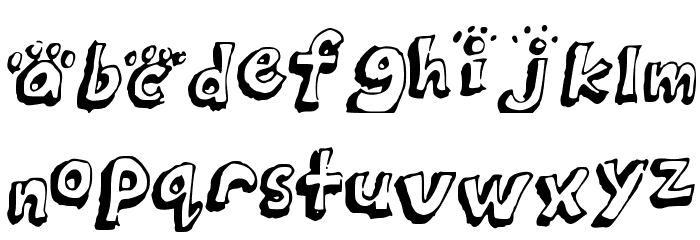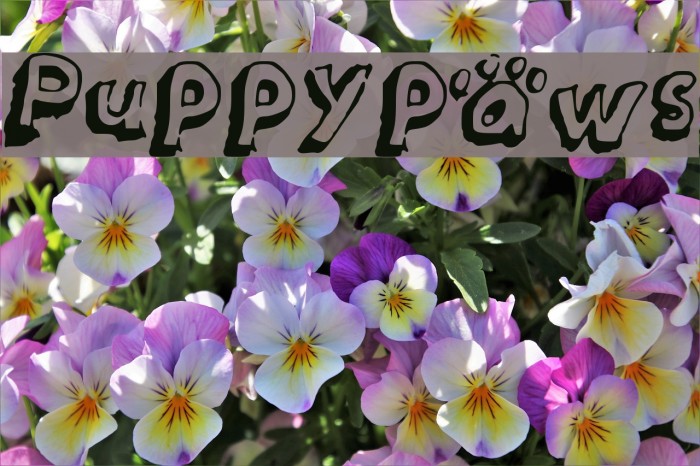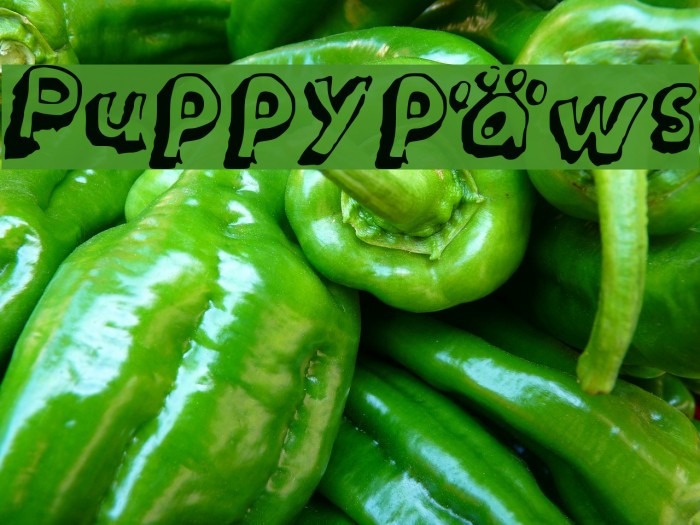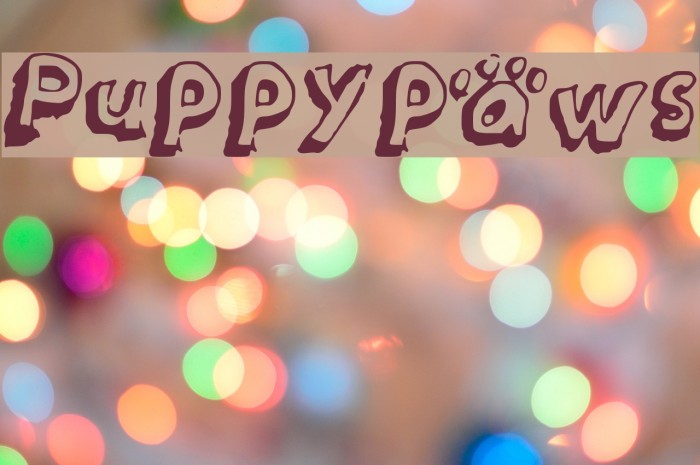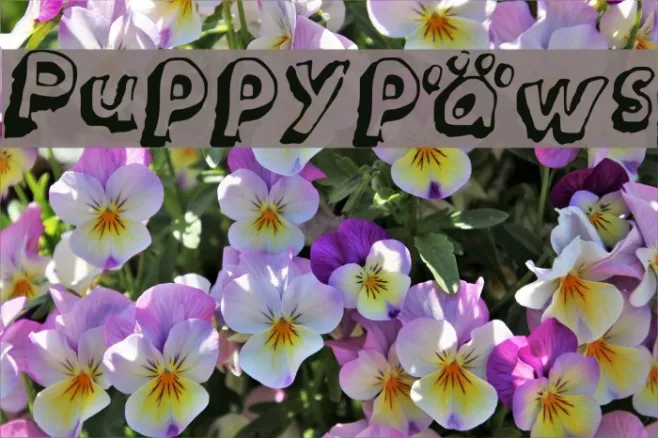
Puppy_paws Font
This playful and whimsical font features a unique design with paw print accents on several characters, giving it a fun and friendly appearance. The letters are bold and slightly irregular, adding to the casual and informal style. The font includes both uppercase and lowercase letters, numbers, and a variety of special characters. The strokes are thick, with a medium contrast between the thick and thin parts, enhancing readability while maintaining a lively look. The overall style is decorative, making it suitable for projects that require a touch of humor or playfulness.
A playful, paw-themed decorative font with bold, irregular characters.
- Proposed Projects: Ideal for children's books, pet-related branding, playful posters, and greeting cards.
- Use Case: Logos, Posters, Greeting Cards